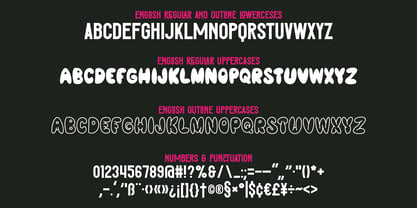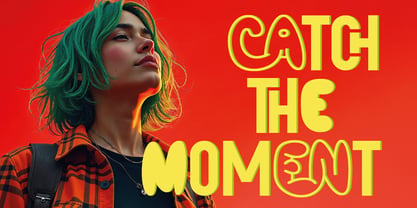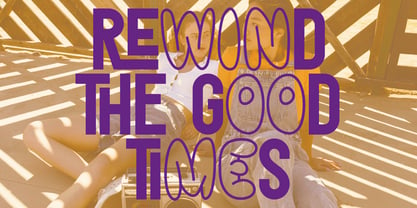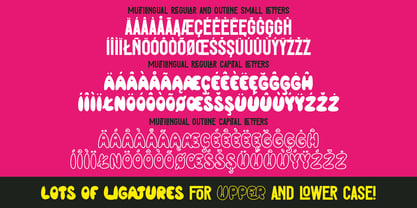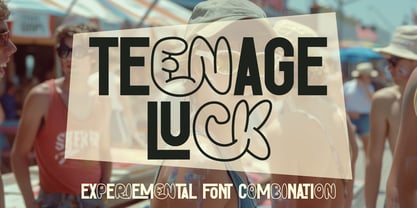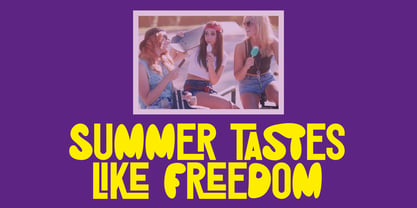
Teenage Luck
by Vozzy
The Teenage Luck Font Family was designed by Oleg Voznyy and published by Vozzy. Teenage Luck contains 2 styles and family package options. More about this family
Introducing the original display font "Teenage Luck" – a handcrafted typeface full of personality and charm. It includes extended characters, punctuation, full multilingual support, as well as a rich selection of alternates and ligatures to give your text extra style and flexibility. Whether you're working on posters, flyers, branding, or T-shirt designs, this font will make your message stand out. Every letter was carefully drawn by hand to achieve a unique and expressive look. "Teenage Luck" is perfect for anyone who wants their design to feel striking, custom, and creative.
Designers: Oleg Voznyy
Foundry: Vozzy